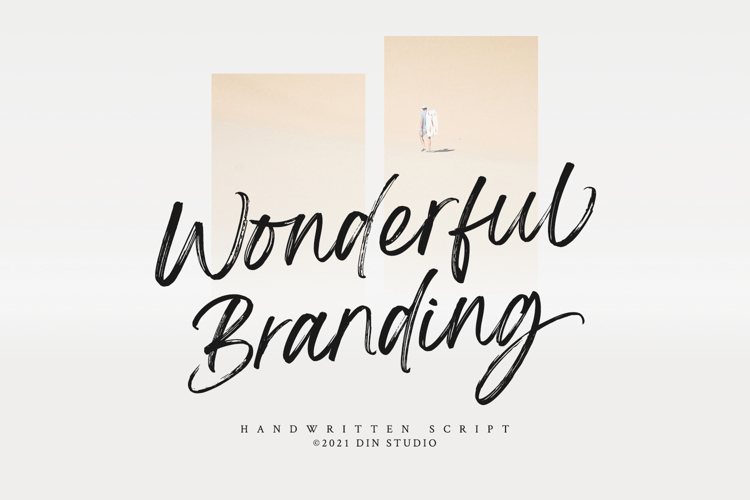
Wonderful Branding Font
Product Description :
Wonderful Branding – A Handwritten Brush Font
Giving you a simple, yet wonderful solution to your branding. This font is more than just another handwritten brush font. It encapsulates the essence of modernity and elegance. With elegance and passion edged into every curve and twist of this brush font – you’ll be sure to boost your sales and make the best impressions. Use it for headings, logos, business cards, printed quotes, invitations of all sorts, cards, packaging, and your website or social media branding.